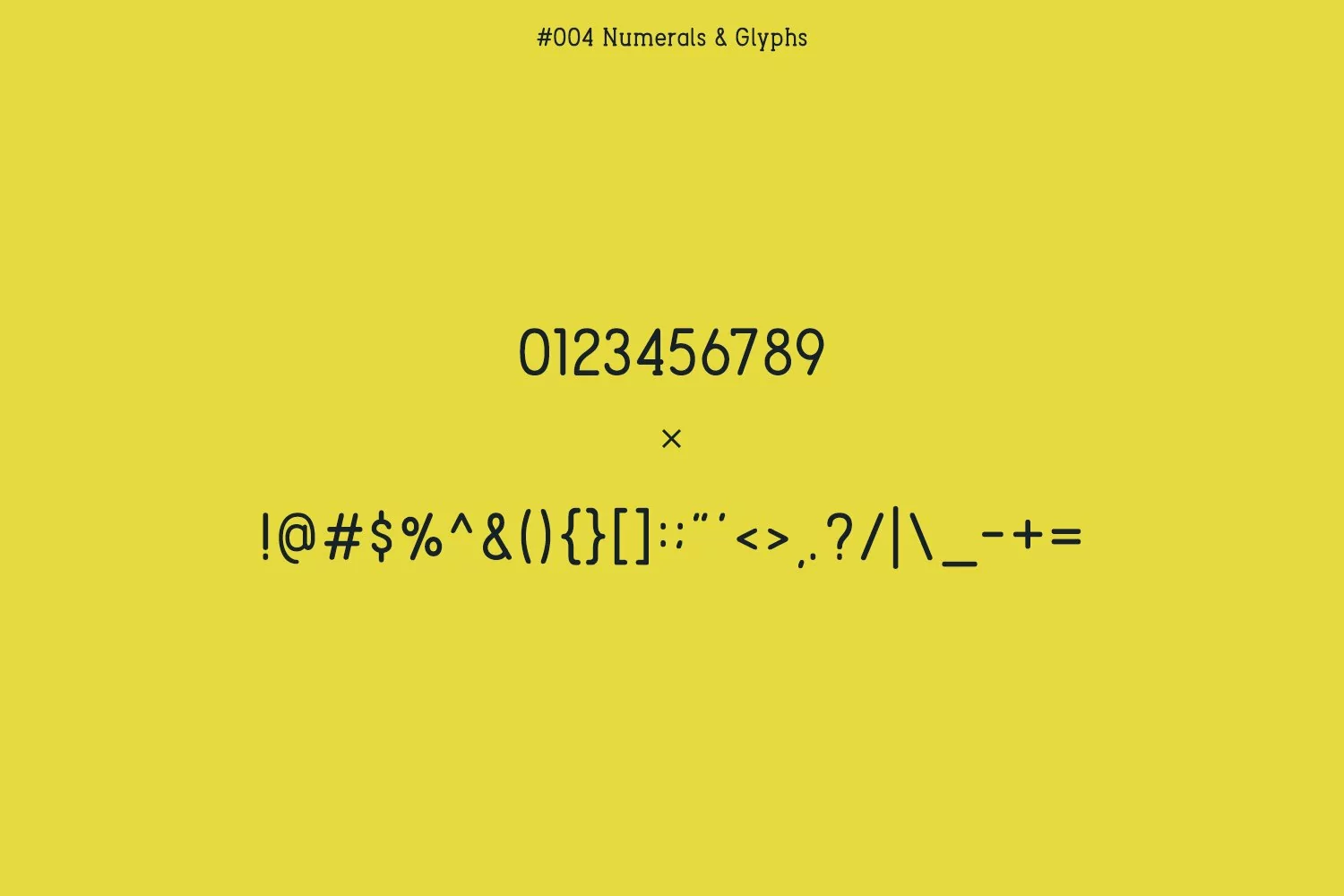
Berry Typeface is a sweet rounded serif font. With a cheerful appearance, this font can be used for fun projects just as easily as it can for professional designs. Berry Typeface makes a brilliant choice for vintage logos, branding, arts, posters, and can also be used in the articles of some text.